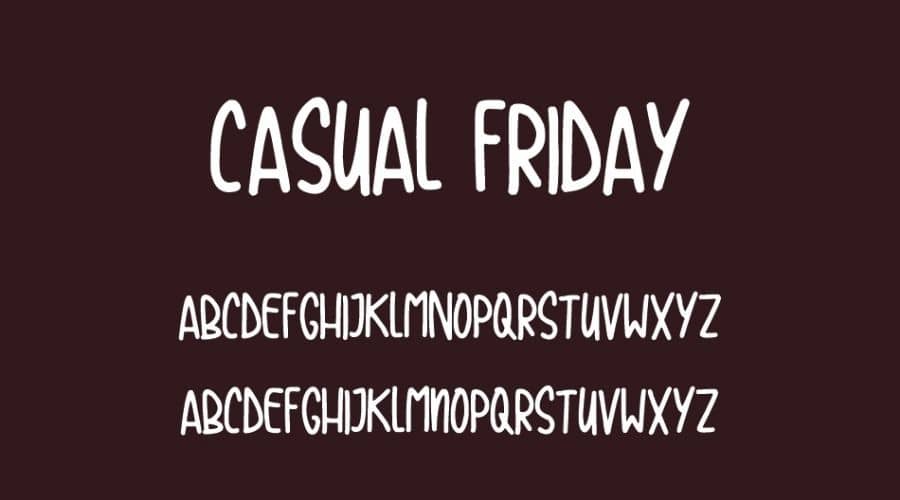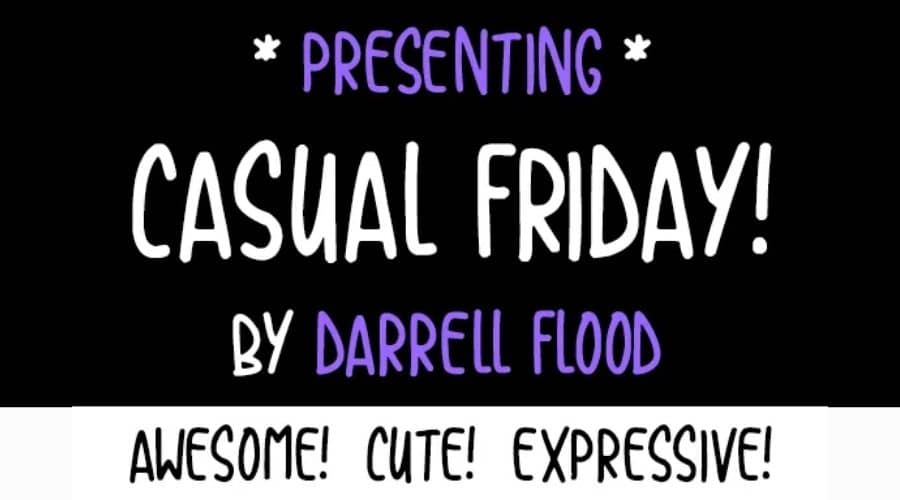
Darrell Flood designed and uploaded Casual Friday font, a high-quality Handwritten & Script font, on February 8, 2019. The typeface can be downloaded for free and used for personal purposes. All uppercase and lowercase letters and a few special characters are included in the free version. Casual Friday Font is a bold script font with a bold feel. The font styles that go with it have a very thick and powerful look.
As a result, it’s ideal for a superior design, thanks to the fine ligature and glyphs. A skilled designer will never pass up an opportunity to use it in their work. So, if you’re a designer or developer, don’t miss out on this opportunity and get to work. This Script and handwritten font is only available in one style, with 97 characters. All of these individuals have a distinct personality that shines through when they are put to work. Numbers, Punctuation, Symbols, and Multilingual Support are just a few of the amazing features included in the Font.
Casual Friday is a handwritten Script that is clean and straightforward. This typeface will be an excellent addition to your font library, regardless of the subject matter, because it has the ability to enhance any creation. Because of the handwritten look of this typeface, it may be used to create logos, posters, banners, fabric printing, card printing, and many other things.